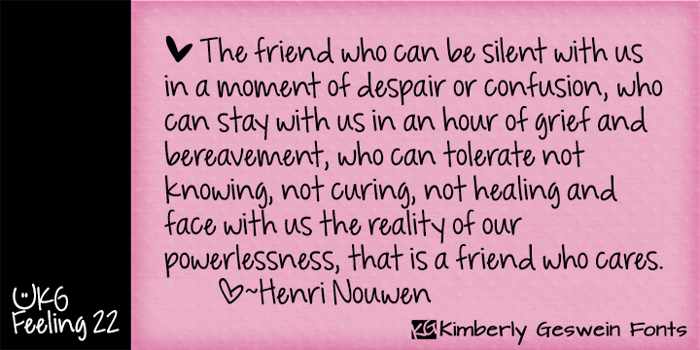
KG Feeling 22 Font
The fun, cute handwriting of an adorable college student.
Access the hearts and smileys using these keys: |ยคโข
Very pretty and cute!